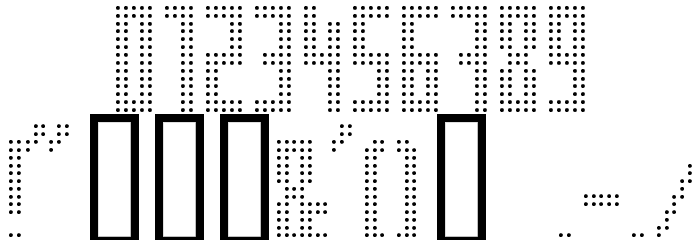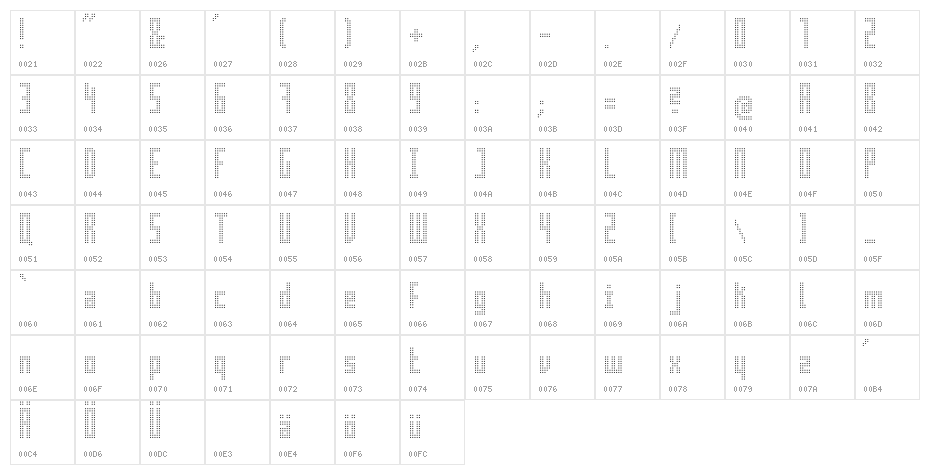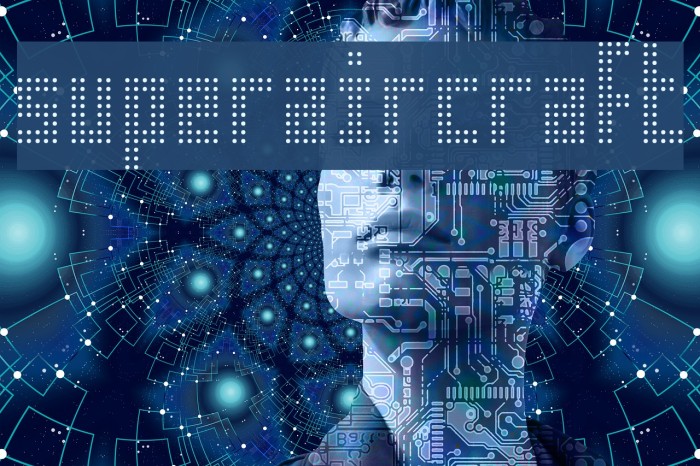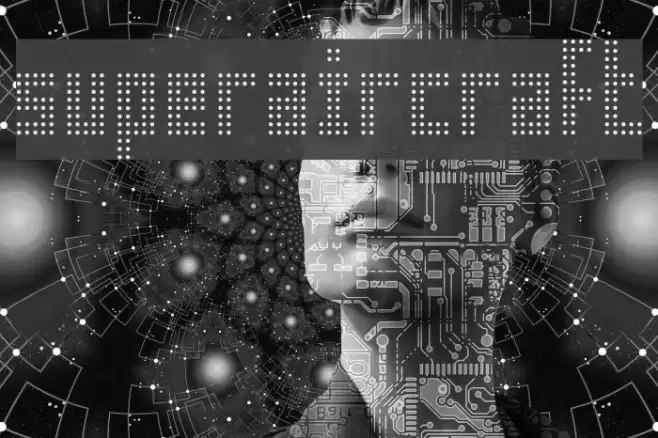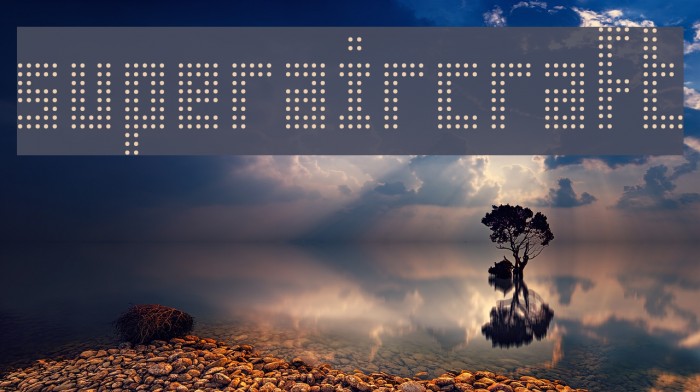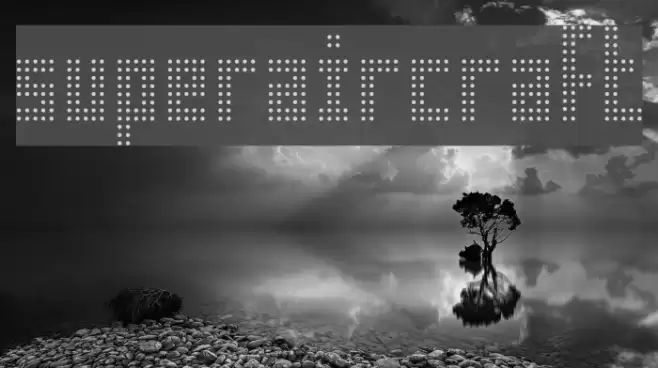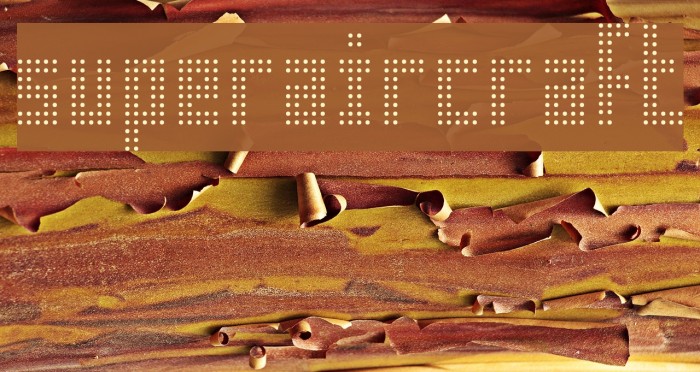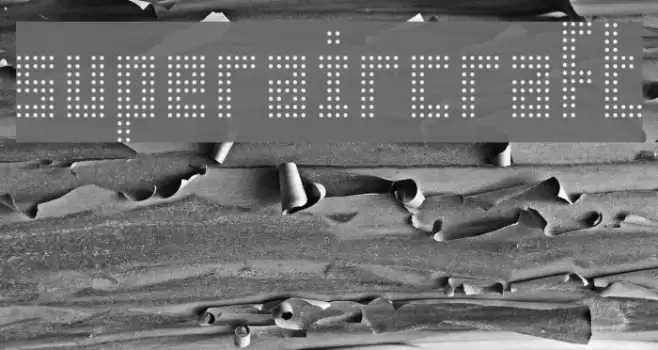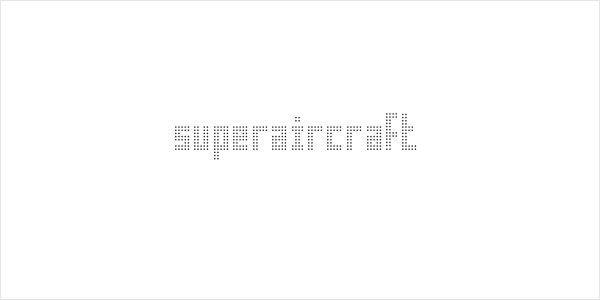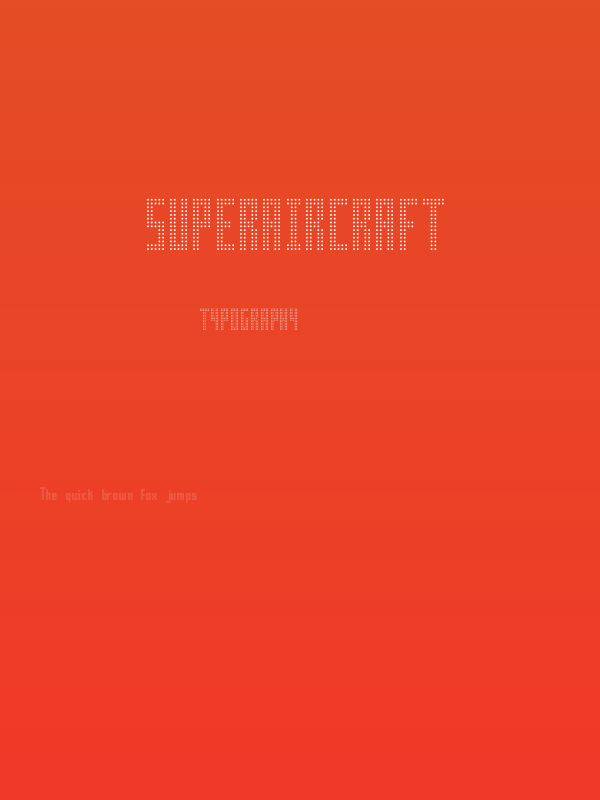
superaircraft Font
superaircraft Description
This font is a unique and creative design composed entirely of small dots, reminiscent of a digital or electronic display. The characters are formed by aligning these dots in a grid-like pattern, giving it a pixelated appearance. The uppercase letters are bold and clear, while the lowercase letters maintain the same dot structure, providing a cohesive look. Numbers and special characters follow the same dotted style, ensuring consistency across all elements. This font's distinct style makes it stand out, offering a modern and tech-savvy aesthetic.
| Use Case | Logos, Digital displays, Tech-themed designs |
| Proposed Projects | Ideal for digital displays, tech-themed projects, modern art designs, and innovative branding. |